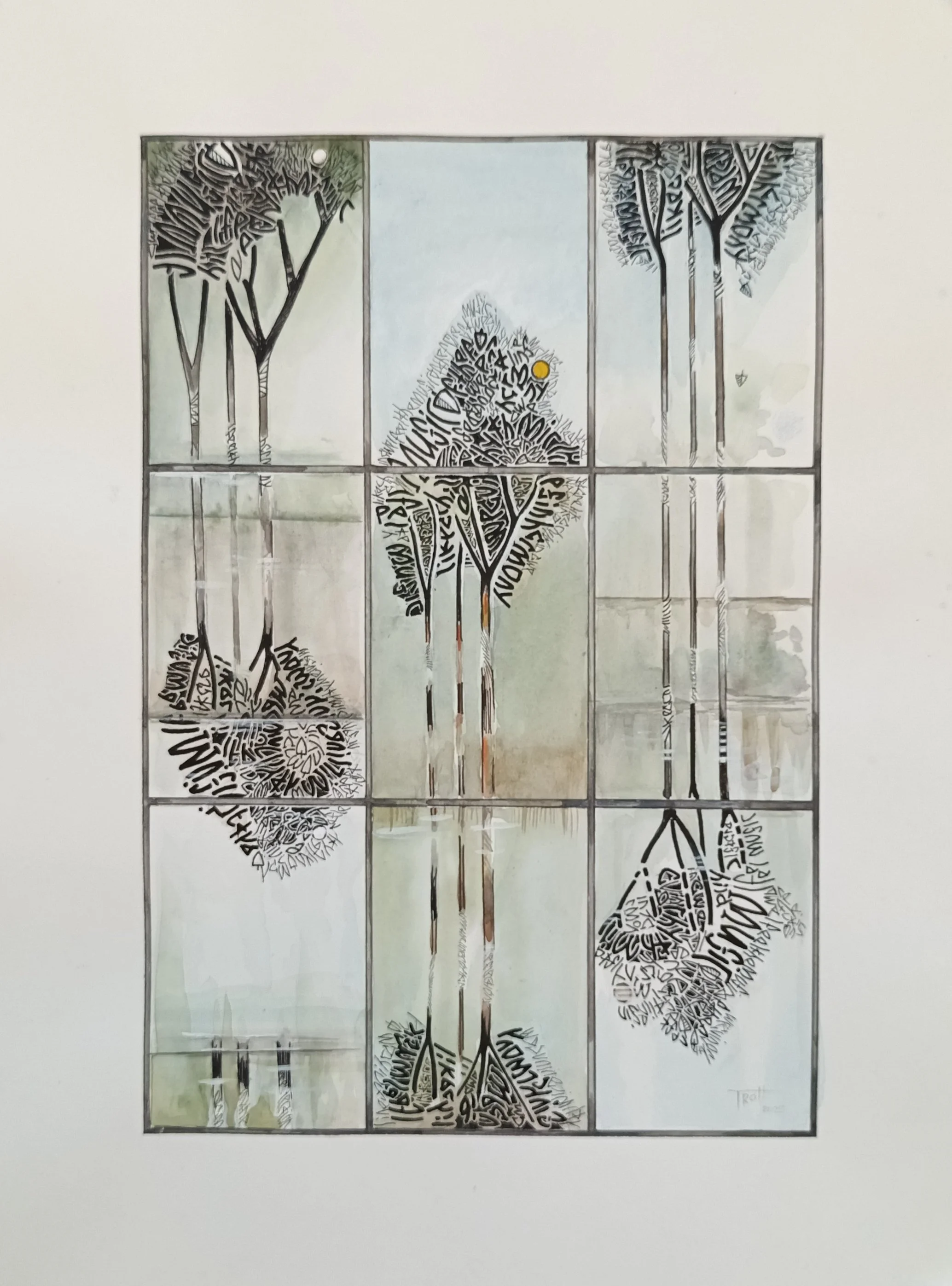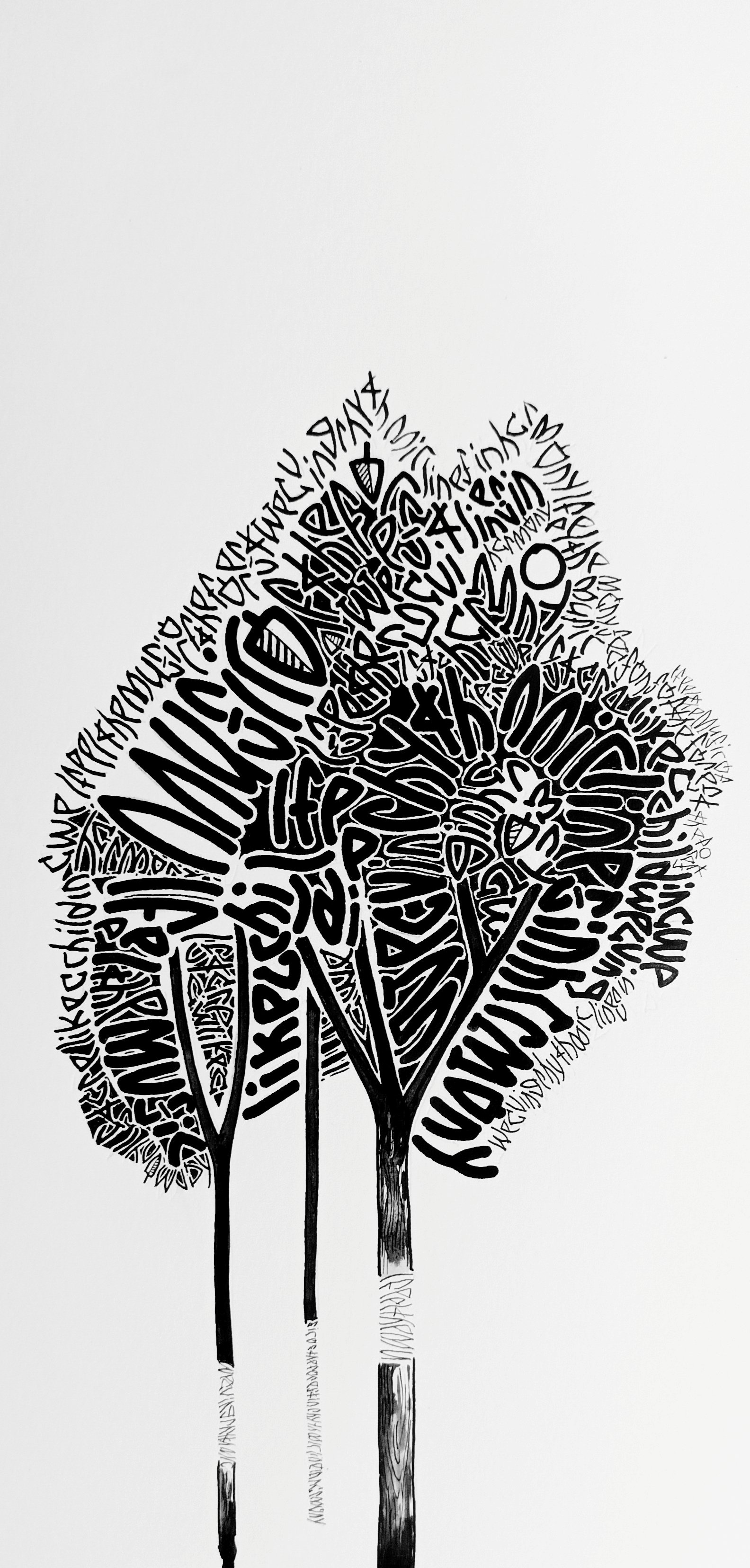
An artist based in New South Wales, Australia
Maria Trott
Maria was born in Manly, New South Wales, Australia. Her early schooling introduced her to Italic writing with dip pen and ink, and her natural handwriting remains an adaptation of this script. She later studied at the Randwick School of Graphic Art and the Institute of Technology in Sydney, focusing on typography and photography while working across various art studios. Alongside her calligraphic interests, Maria has developed a broad creative practice as a trained florist, a commissioned portrait painter in oils (animal and human), and an illustrator producing caricatures and playful, expressive art. Her artistic path is shaped by an ongoing commitment to adapting to new technologies, learning continuously, and staying resilient in an ever-changing creative landscape.
Surrounded by nature and her beautiful horses, Maria’s art is infused with her deep appreciation for her environment.
Typography, photography, floristry, portraiture and illustration
TITLE | Forest Music Book
This artist’s book is inspired by the Australian Native Forest where she lives. The work reflects the forest’s ability to sustain life and the vital importance of using natural resources responsibly. The forest reveals both its beauty and its fragility, contrasting the elegance seen from highways with the reality of suburban encroachment deeper within.